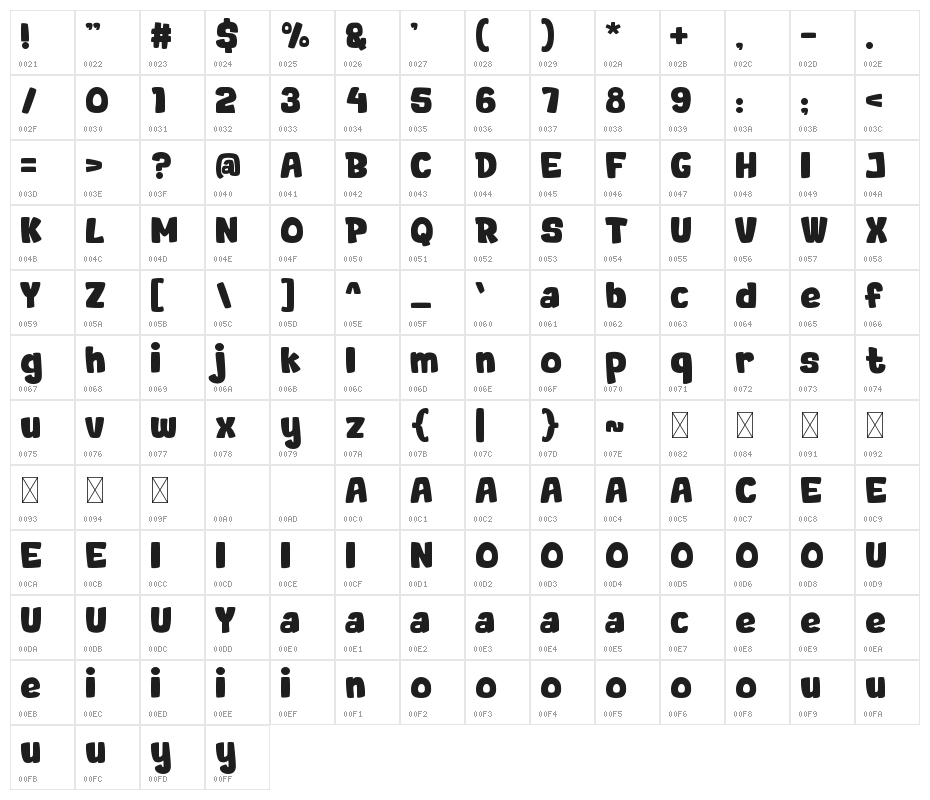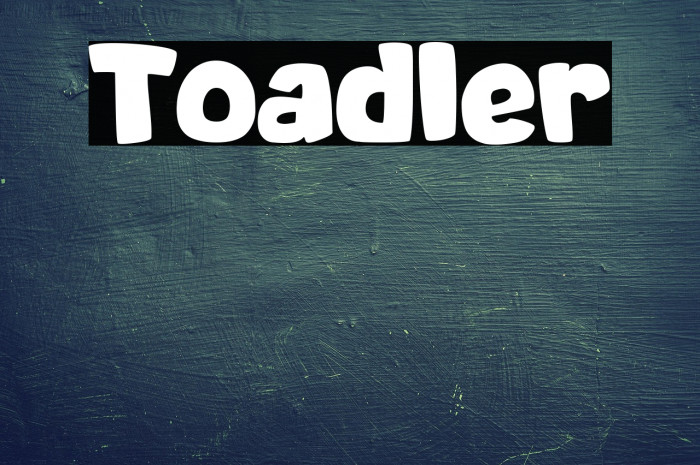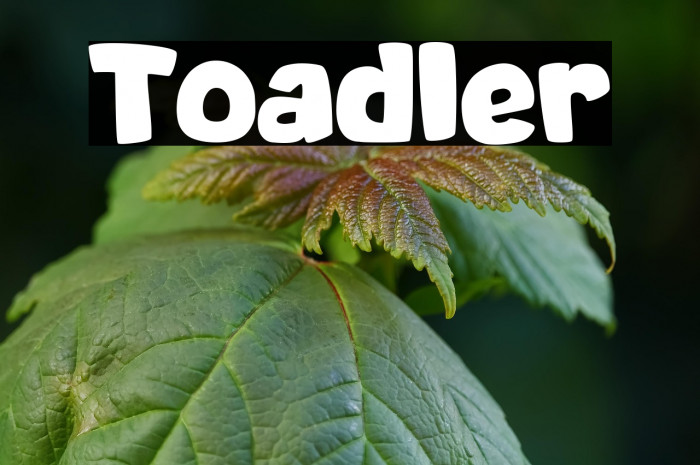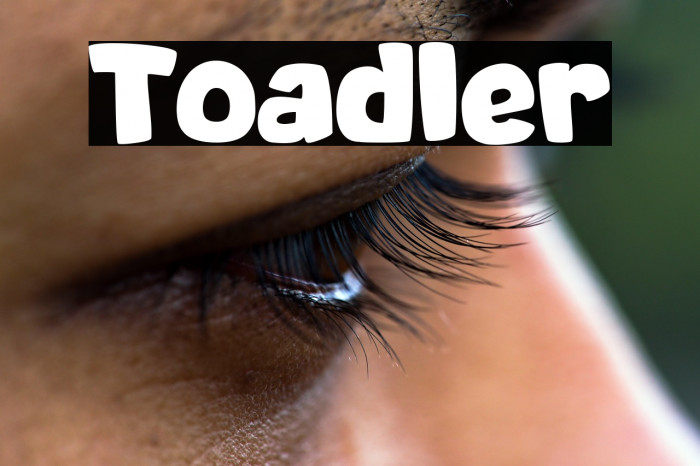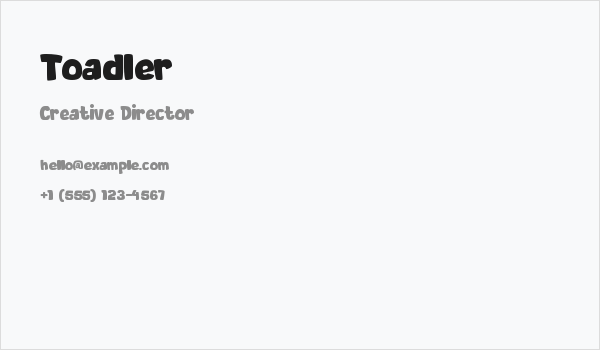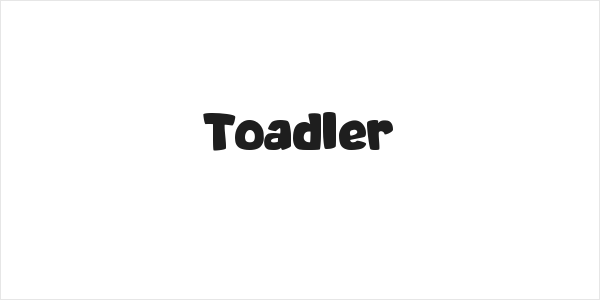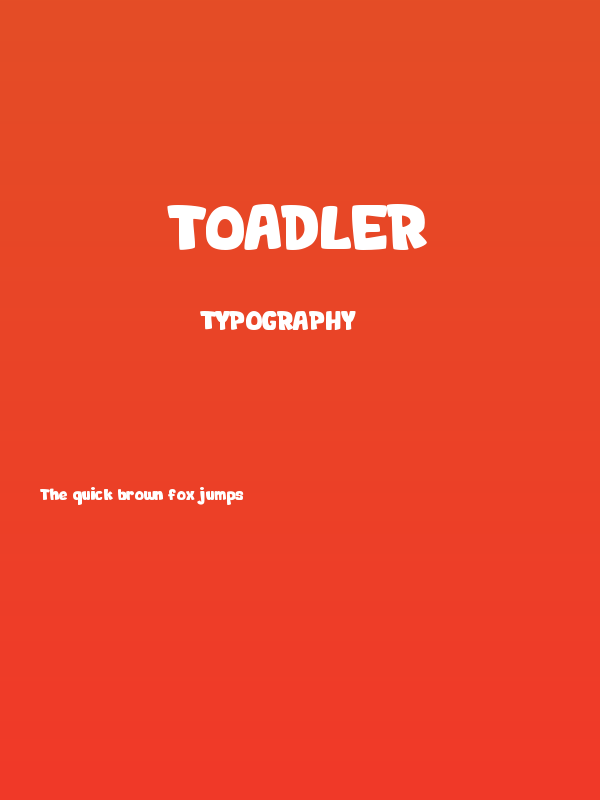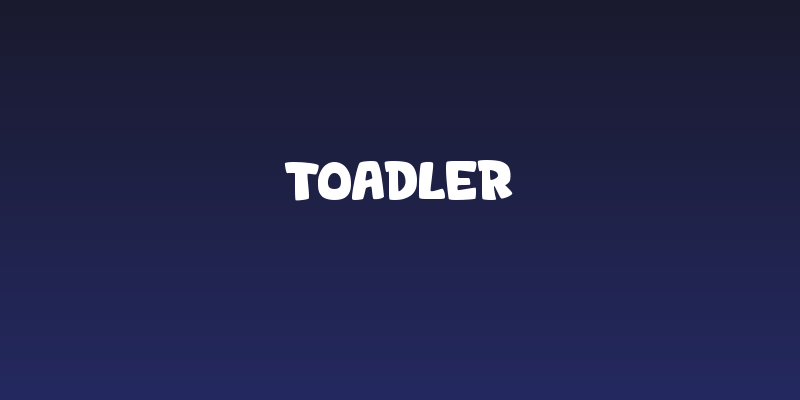
Toadler Font
Toadler Description
This playful and bold font features thick, rounded characters that convey a sense of fun and whimsy. The letters have a consistent weight throughout, with a slightly exaggerated width that gives them a cartoonish appearance. The overall style is informal and approachable, making it ideal for designs that aim to capture attention and convey a lighthearted message. The font includes a full set of uppercase and lowercase letters, numbers, and a variety of special characters, ensuring versatility in its application.
| Proposed Projects | Ideal for children's books, playful branding, posters, and social media graphics. |